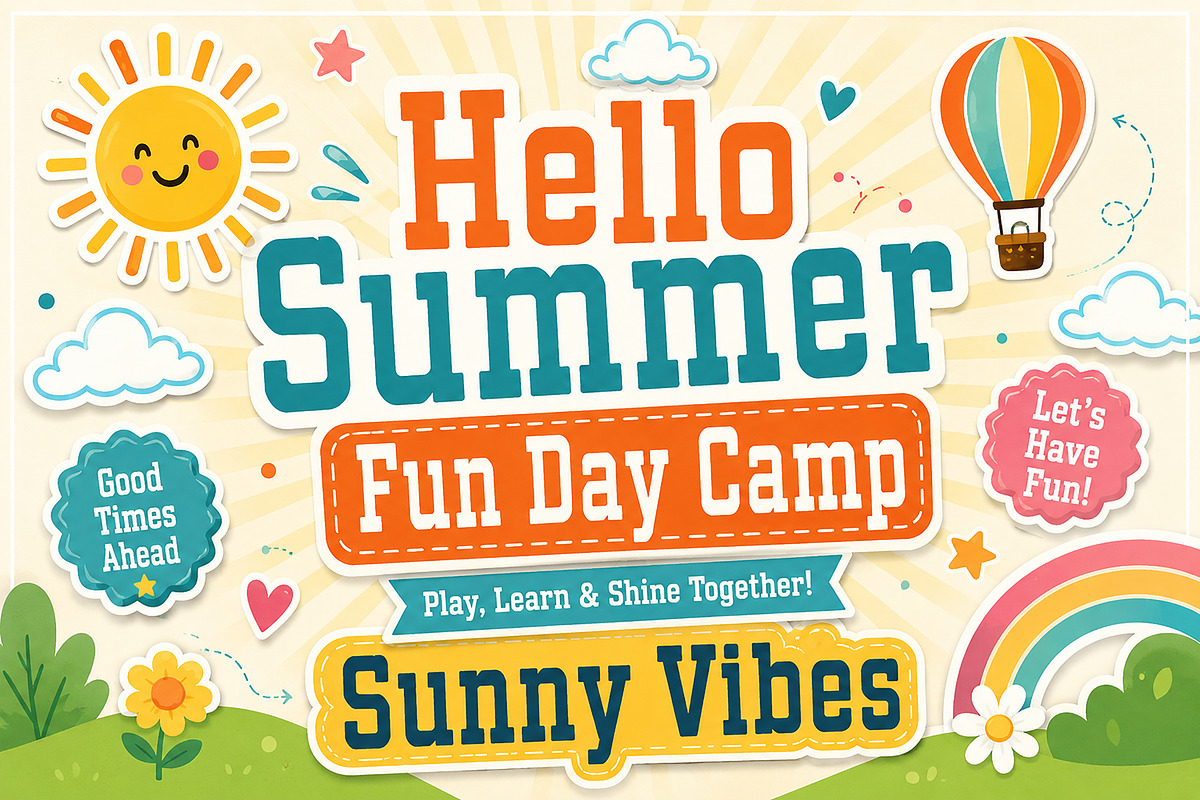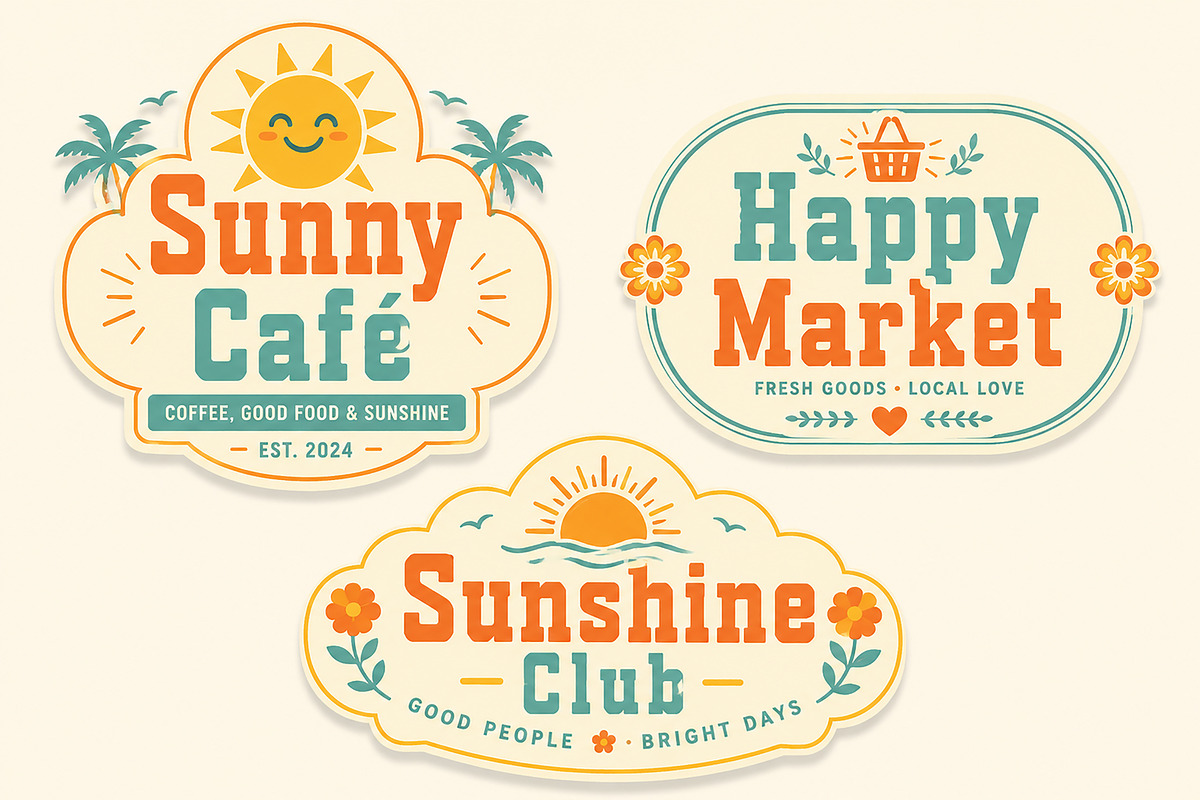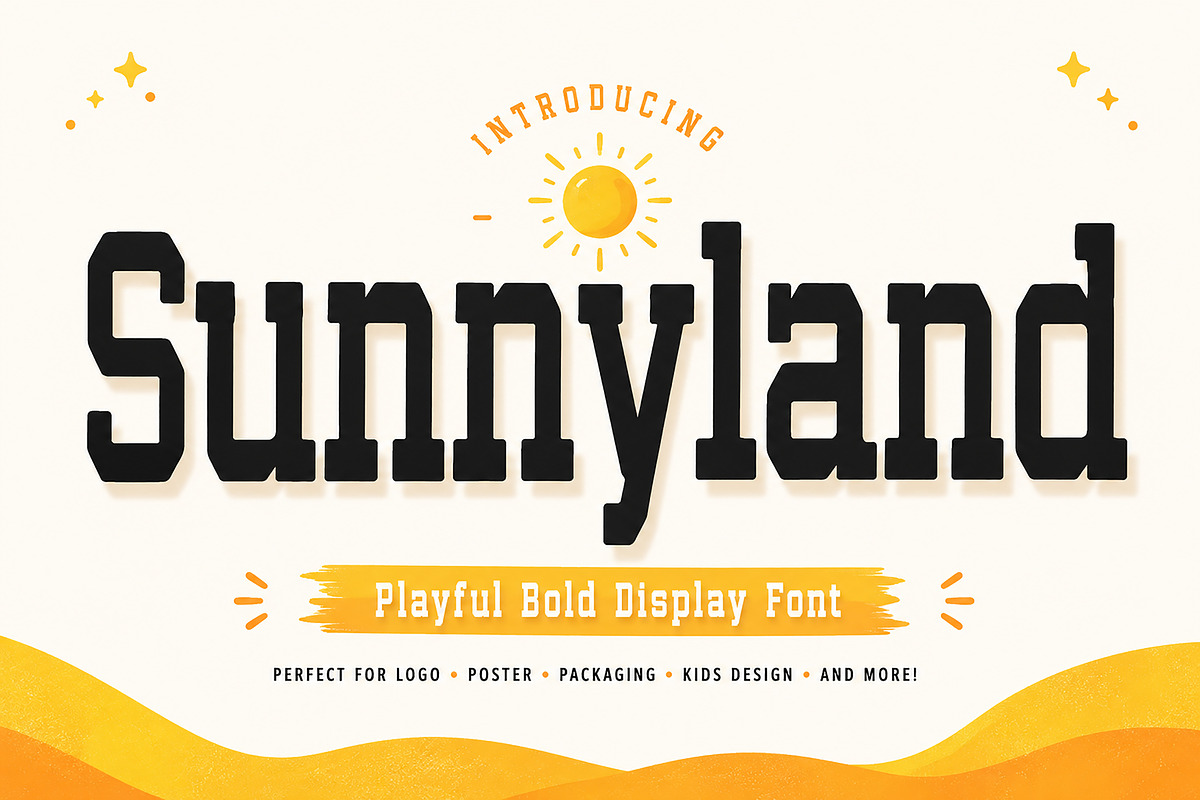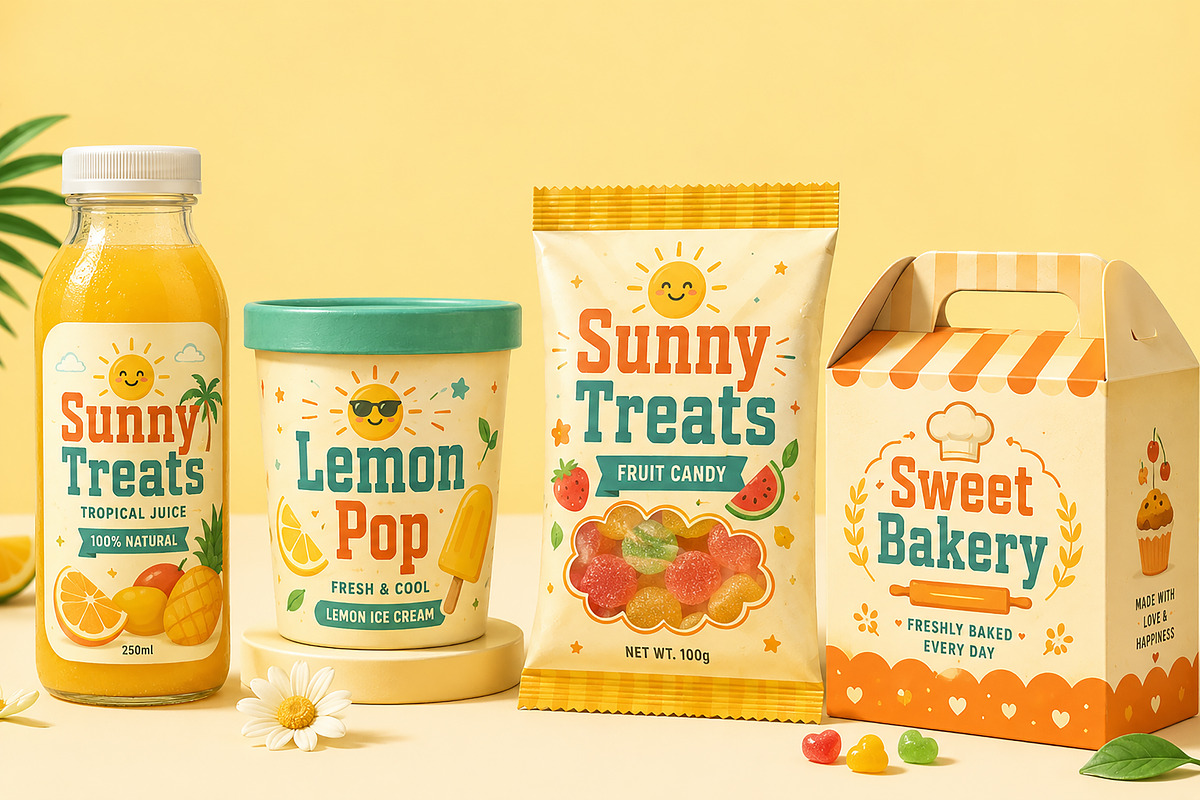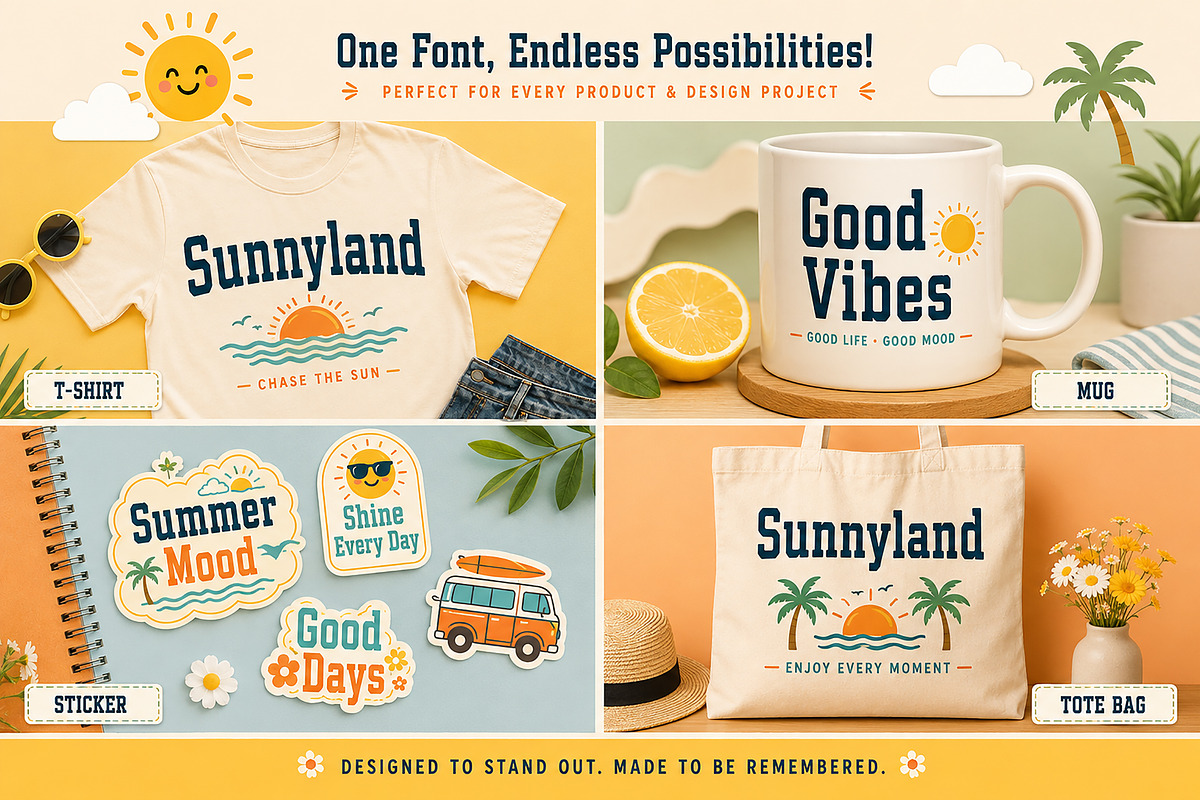
Sunnyland
Sunnyland – Playful Bold Display Font
Sunnyland is a cheerful and bold display font inspired by retro summer vibes, playful packaging, kids posters, and sunny branding designs. Featuring strong slab-style letterforms with a fun handcrafted personality, this font instantly brings warmth, happiness, and eye-catching energy to any creative project.
Perfect for logos, product packaging, posters, stickers, T-shirts, social media graphics, classroom projects, and print-on-demand designs, Sunnyland combines a vintage playful look with modern readability. Its chunky characters and friendly style make it ideal for summer themes, kids branding, snack packaging, café logos, and fun typography projects.
Whether you're designing ice cream labels, candy packaging, beach party flyers, tote bags, or colorful merchandise, Sunnyland adds a bright and joyful character that stands out beautifully.
Summer Branding
Kids Posters & Flyers
Café & Bakery Logos
T-shirt & Apparel Design
Sticker Design
Retro Branding
Print-on-Demand Products
Tote Bag & Mug Design
Classroom Projects
Fun Event Posters
Uppercase Characters
Bold Playful Style
Retro Summer Vibes
Clean & Easy to Read
Perfect for Branding & Packaging
Fun Display Typeface